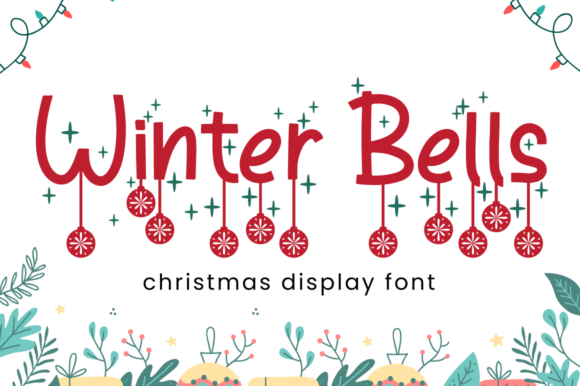
Introducing Winter Bells Font, a decorative font family that will add a charming vintage touch to your creative projects. Crafted by the talented attypestudio, this font is a masterpiece, featuring delicate strokes, intricate details, and elegant bells that serve as ornaments. Perfect for Christmas promotions and designs, Winter Bells will transform your ideas into captivating works of art.
With its unique and eye-catching style, Winter Bells is sure to leave a lasting impression. The flowing lines and graceful curves of each letter exude an undeniable charm, perfect for creating enchanting designs that transport you to a bygone era. Whether you're designing Christmas cards, invitations, posters, or branding materials, Winter Bells will elevate your projects to new heights of sophistication and charm.
But Winter Bells is more than just a beautiful font; it's also incredibly versatile. Its delicate nature lends itself to a wide range of creative applications, from elegant wedding invitations to whimsical children's books. The ornate bells add a touch of festivity and joy, making it perfect for seasonal designs, holiday cards, and festive branding.
Let Winter Bells be your creative companion and watch as your designs come alive with its magical touch. Embrace the vintage charm and create designs that evoke nostalgia, warmth, and timeless elegance. Download Winter Bells today and embark on a creative journey where imagination knows no bounds.